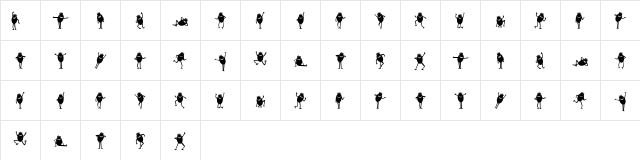
Complete Diavolo Nero Regular glyph index. Displaying only characters natively supported by Diavolo Nero Regular font.
Diavolo Nero is a composed and adaptable typeface that performs quietly and consistently across a wide range of design contexts.